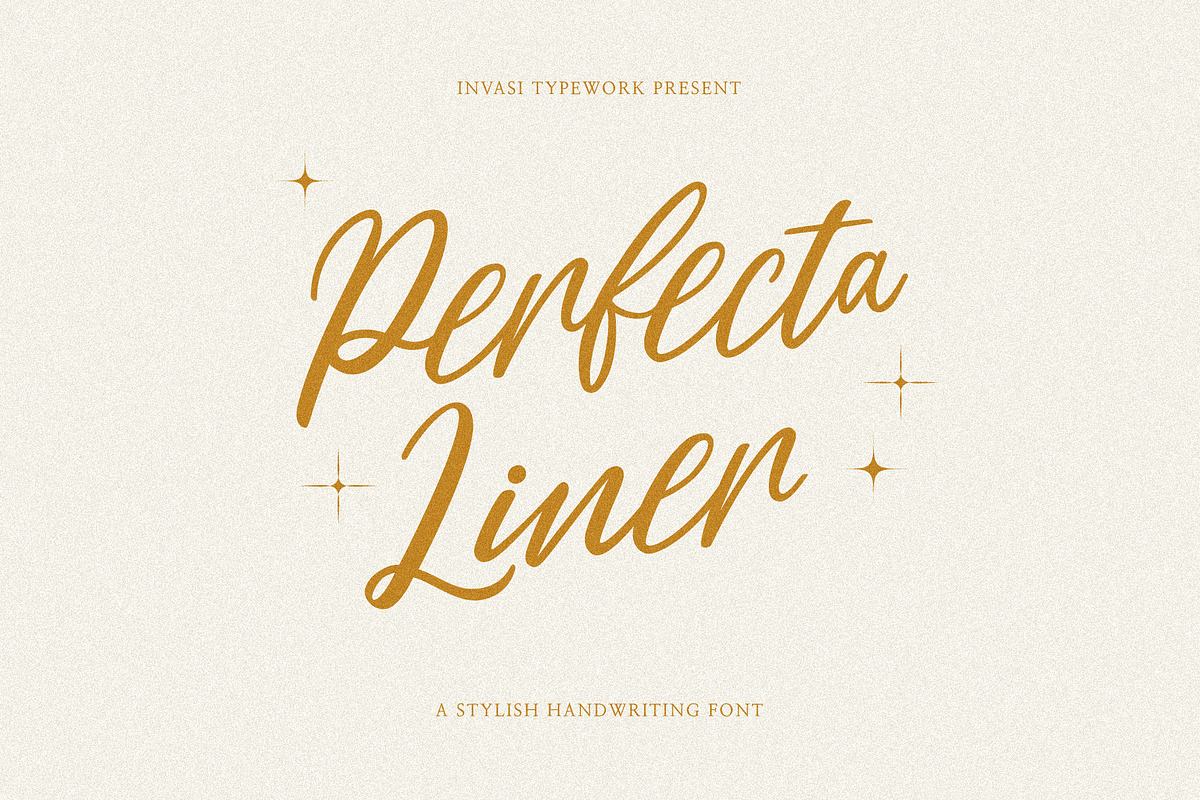
Perfecta Liner - Handwritten Script Free Download
Perfecta Liner - Handwritten Script Font Free Download
Please note, you must purchase this font for commercial use. However, you can easily download Perfecta Liner - Handwritten Script Font Free Download for personal use and testing purposes. Perfecta Liner - Handwritten Script Font is an elegant, flowing typeface that captures the beauty of natural handwriting with a sophisticated and stylish touch. Perfect for creating personalized invitations, branding, social media graphics, and more, this font features smooth curves and a graceful flow that gives your designs an organic, artistic feel. Whether you're designing a chic logo, a heartfelt greeting card, or a luxurious wedding invitation, Perfecta Liner - Handwritten Script Font Free Download will bring warmth and elegance to your projects. Download Perfecta Liner - Handwritten Script Font Free Download today and explore its potential before opting for a commercial license.